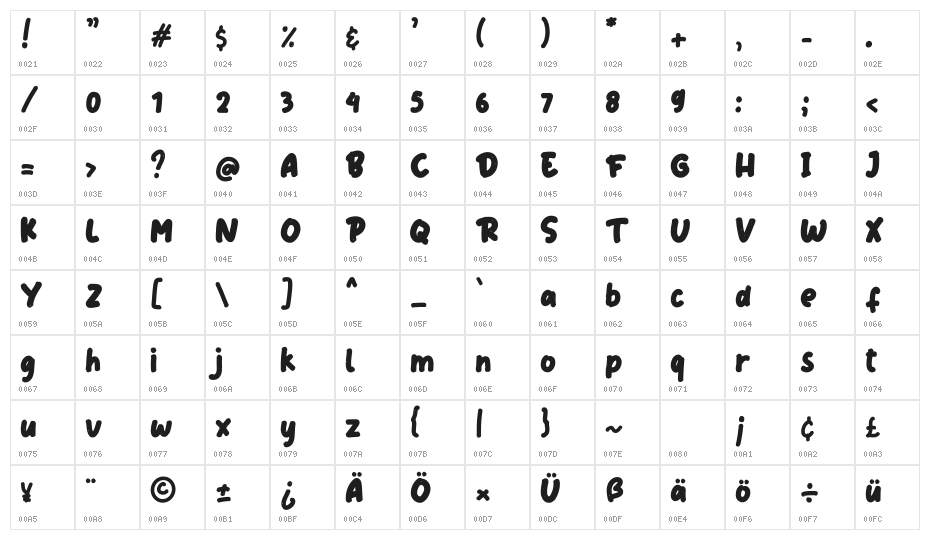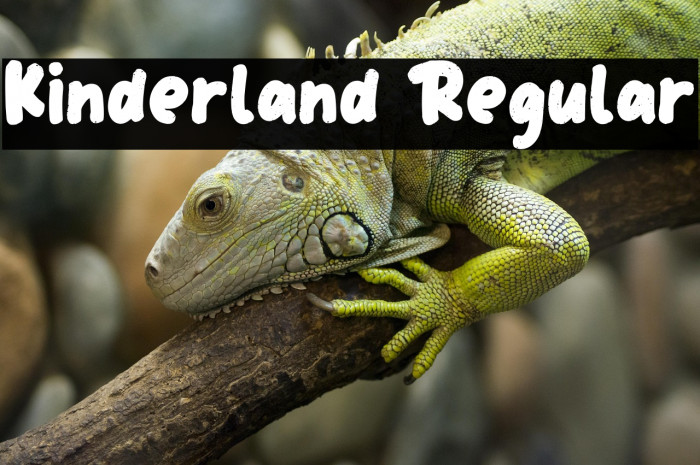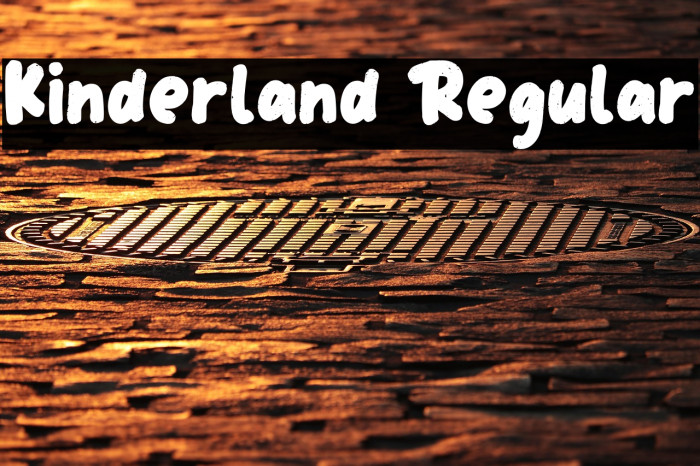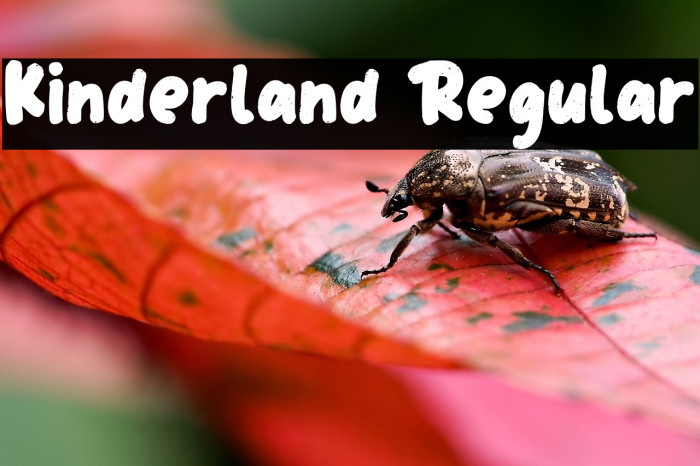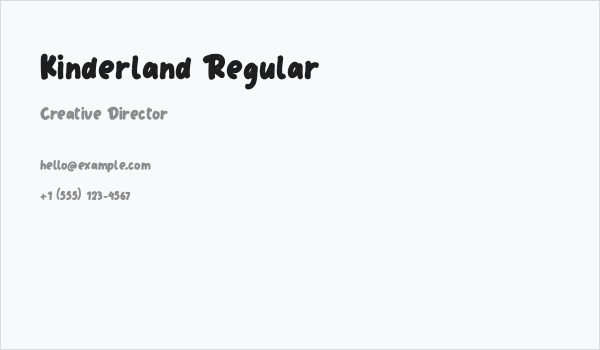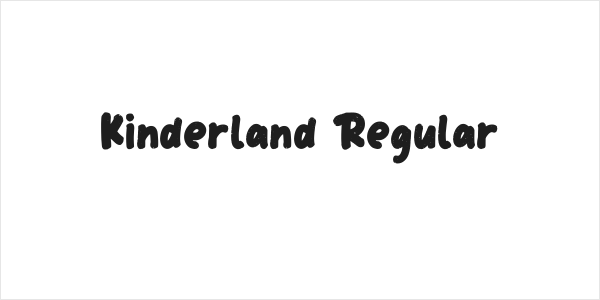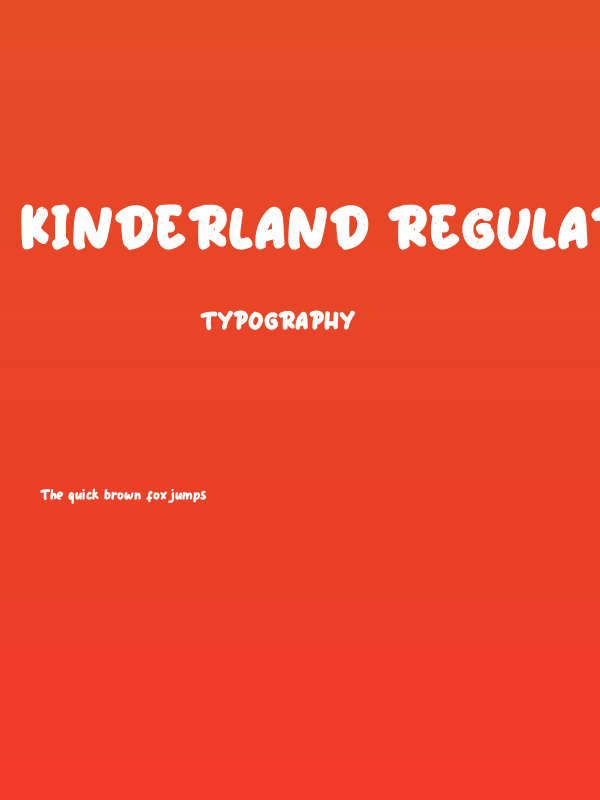
Kinderland Regular Font
Kinderland Regular Description
This playful and bold font features a hand-drawn aesthetic with rounded edges and a slightly irregular baseline, giving it a whimsical and friendly appearance. The letters are thick and substantial, making them highly legible and impactful. The font's informal style is reminiscent of children's handwriting, with a touch of artistic flair. It includes a full set of uppercase and lowercase letters, numerals, and a variety of punctuation marks and special characters. The overall look is both approachable and dynamic, suitable for projects that require a fun and engaging typeface.
| Proposed Projects | Ideal for children's books, playful branding, educational materials, and creative posters. |